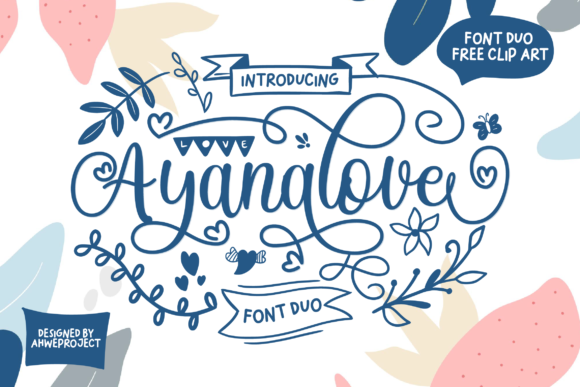
Creating Something Special with the Ayanalove Font
Do you ever get that spark of creativity in the middle of the night, and you just can’t wait to bring your idea to life? For designers, this feeling is a constant companion, and it’s what drives us to push the boundaries of our craft. Whether it’s a logo, a poster, or a wedding invitation, the right font can make all the difference.
That’s where the Ayanalove Font comes in – a sweet, all-around, and flexible script font that’s perfect for turning your project ideas into real works of art. With its warm, romantic, and jolly vibe, this font is sure to bring a smile to your face and a touch of magic to your designs. And with its PUA encoding, you can access all the amazing glyphs and ligatures with ease, making it a valuable addition to any designer’s toolkit.
Ayanalove Font Key Features
- Unique Characteristics: Ayanalove Font features a unique blend of modern and traditional elements, with intricate details and flourishes that add a touch of elegance to any design.
Ayanalove Font Review
I recently had the chance to work with the Ayanalove font, and I must say it’s a unique and interesting choice for designers. ✨ Here are some things that stood out to me:
- The Ayanalove font has a beautiful, hand-painted feel to it. The subtle imperfections and variations in letterform make it feel truly artisanal.
- The font’s weight range is impressive, with a total of 10 weights available. This makes it perfect for creating a wide range of designs, from bold headlines to delicate body text.
- The font’s OpenType features are also worth mentioning. The contextual alternates and swashes add a level of sophistication and elegance to the design.
- The Ayanalove font may not be the best choice for large blocks of text. The hand-painted feel can make it difficult to read at smaller font sizes.
- The font’s unique style may not be for everyone. Some designers may find it too quirky or unconventional.
Overall, I think the Ayanalove font is a great choice for designers who want to add a touch of personality and whimsy to their designs. While it may not be perfect for every project, it’s definitely worth considering for the right client or project.
Getting the Most Out of Ayanalove Font
To get the most out of Ayanalove Font, experiment with different font sizes, colors, and styles to create a unique and eye-catching design. You can also combine Ayanalove Font with other fonts to create a visually appealing contrast.
Ayanalove Font is ideal for use in creative projects, such as:
- Graphic design
- Choose a set of romantic love quotes.
- Use the Ayanalove Font to typeset the quotes in a visually appealing way, considering font size, color, and spacing.
- Add illustrations or graphics to enhance the design and make it more whimsical.
- Pair the Ayanalove Font with watercolor illustrations for a soft, dreamy look.
- Add gold or copper foil accents to give the design a luxurious feel.
- Use the Ayanalove Font as the primary font for the logo, combining it with other fonts for a secondary or supporting font.
3 Creative Project Ideas using Ayanalove Font
Project 1: Whimsical Love Quotes Wall Art
A unique wall art piece featuring inspiring love quotes in the Ayanalove Font, perfect for any couple’s bedroom or living room.
To use Ayanalove Font in this project:
Project 2: Ayanalove Font-based Logo Design
A custom logo design featuring the Ayanalove Font, perfect for a love-themed business or personal branding.
To use Ayanalove Font in this project: